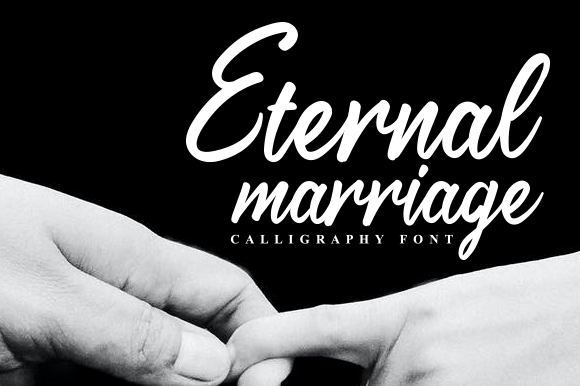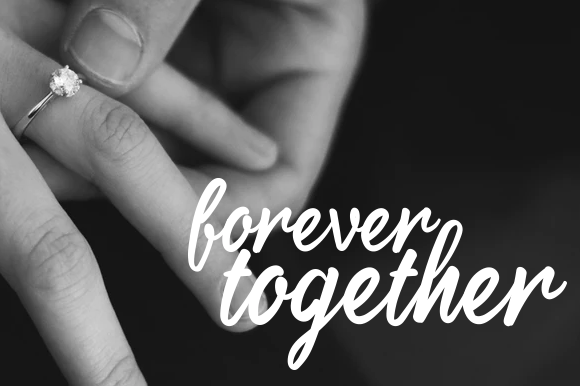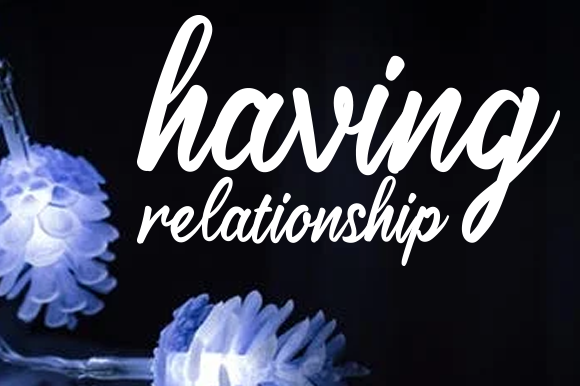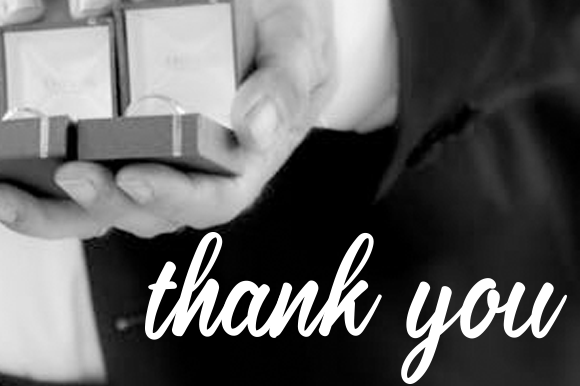
Bellania Signature Font: Elevate Your Designs with Elegance and Sophistication
In the world of typography, a signature font can make all the difference in elevating your designs from ordinary to extraordinary. If you’re a designer, crafty enthusiast, or simply someone who appreciates beautiful handwriting, then you’re in luck. Introducing Bellania Signature Font, a stunning handwritten font that embodies the perfect blend of classic elegance and modern sophistication.
What is Bellania Signature Font?
Bellania Signature Font is a meticulously crafted handwritten font that simplifies elegance into one truly outstanding typeface. With its classy calligraphic influences, this font exudes a sense of refinement and luxury, making it perfect for a wide range of design applications. From letterheads and titles to stationery and more, Bellania Signature Font is the ideal choice for anyone looking to add a touch of sophistication to their creations.
Key Features of Bellania Signature Font
• Classy Calligraphic Influences: Bellania Signature Font boasts elegant calligraphic strokes, giving it a timeless and sophisticated feel.
• Contemporary and Fresh: Despite its classic roots, this font feels modern and fresh, making it perfect for designers who want to create unique and eye-catching designs.
• Versatility: Bellania Signature Font is incredibly versatile, allowing you to use it for a wide range of design projects, from formal letterheads to creative stationery.
• Handwritten Charm: This font retains the charm of handwritten script, adding a personal touch to your designs that sets them apart from more traditional typefaces.
Who is Bellania Signature Font for?
Bellania Signature Font is perfect for a variety of designers, crafty enthusiasts, and businesses, including:
• Graphic Designers: If you’re a graphic designer looking for a font that will elevate your designs and give them a touch of sophistication, then Bellania Signature Font is an excellent choice.
• Crafty Enthusiasts: Whether you’re creating handmade cards, gift tags, or other paper crafts, this font is sure to add a touch of elegance to your creations.
• Small Business Owners: If you’re looking for a font that will help you establish a professional brand identity, Bellania Signature Font is an excellent option.
How to Use Bellania Signature Font
• Create Elegant Letterheads: Use Bellania Signature Font to create professional-looking letterheads that make a lasting impression.
• Design Beautiful Stationery: Add a touch of sophistication to your stationery with this stunning handwritten font.
• Make Eye-Catching Titles: Use Bellania Signature Font to create eye-catching titles for your blog posts, articles, or social media graphics.
In conclusion, Bellania Signature Font is an exceptional handwritten font that is sure to elevate your designs and add a touch of elegance to your creations. With its classy calligraphic influences, contemporary feel, and versatility, this font is perfect for designers, crafty enthusiasts, and businesses looking to establish a professional brand identity. So why wait? Download Bellania Signature Font today and start creating stunning designs that will leave a lasting impression.